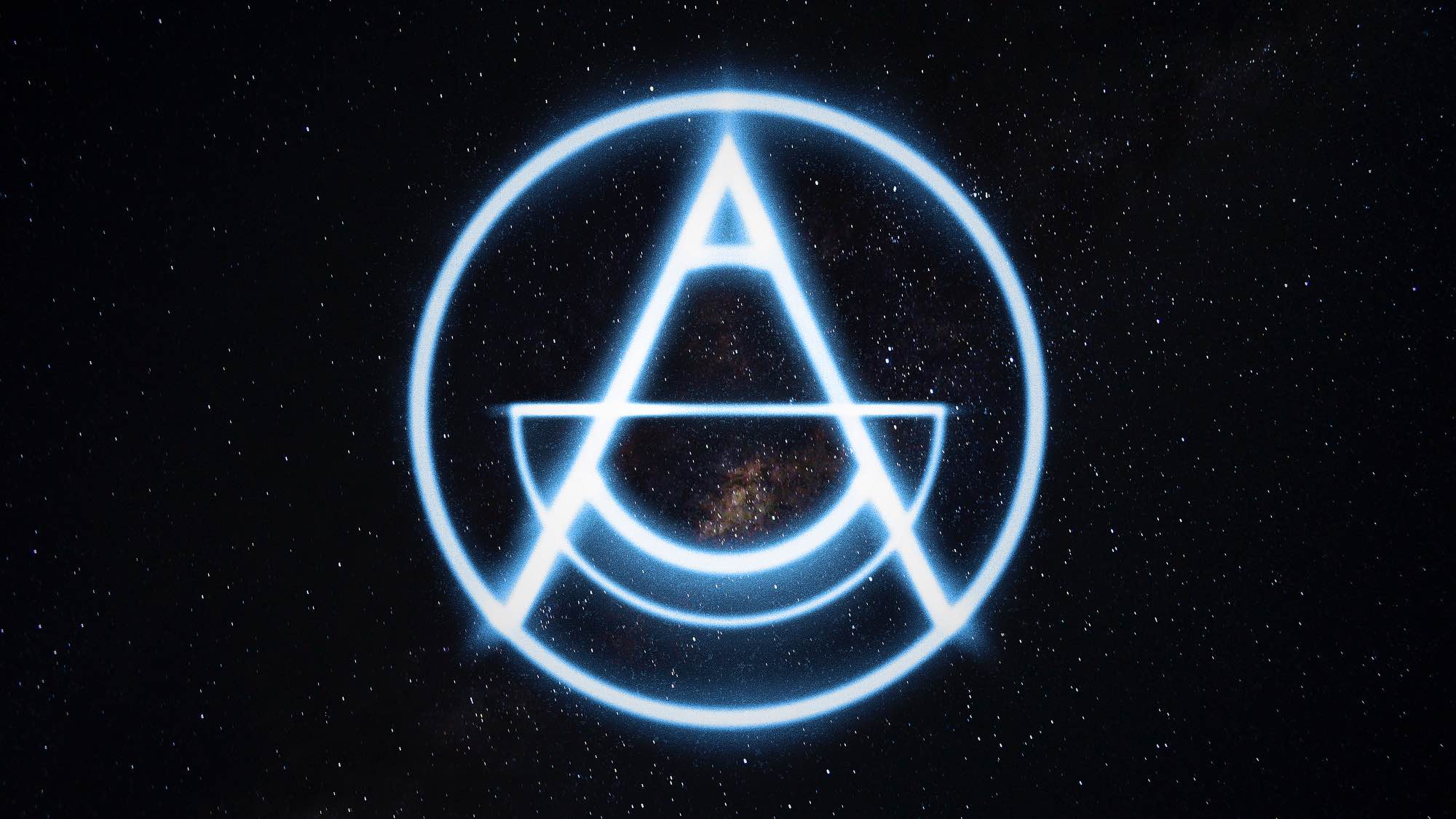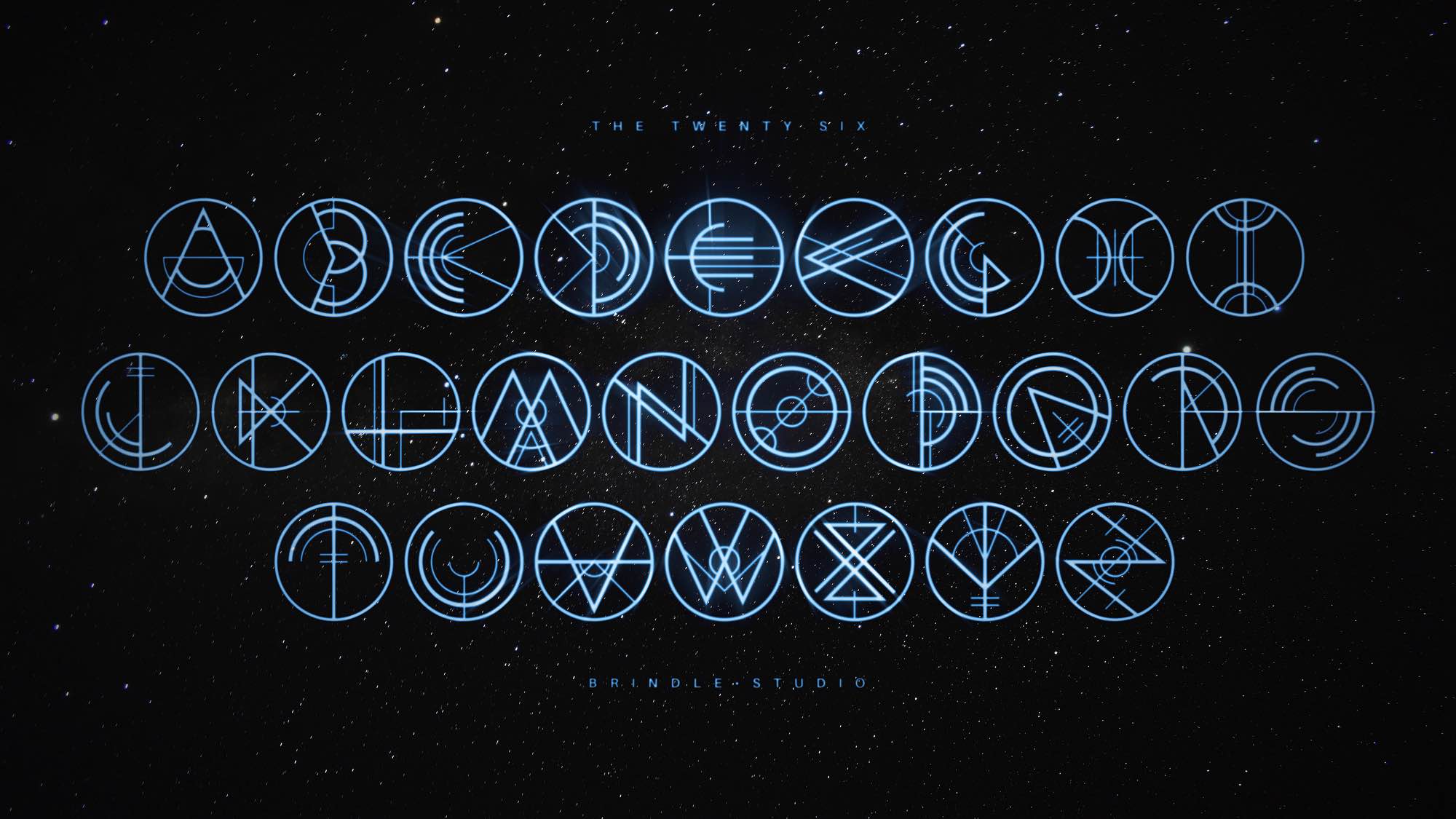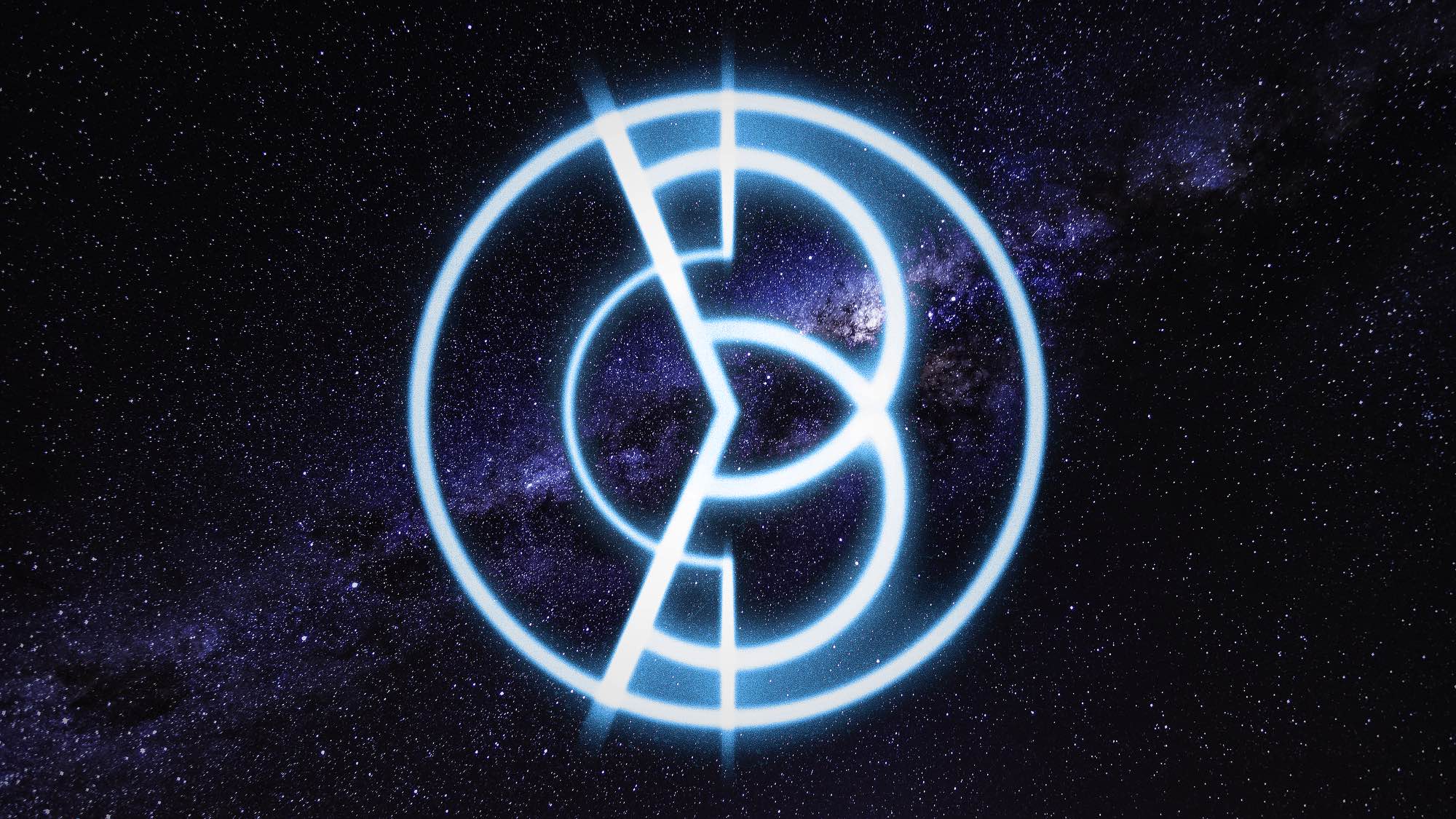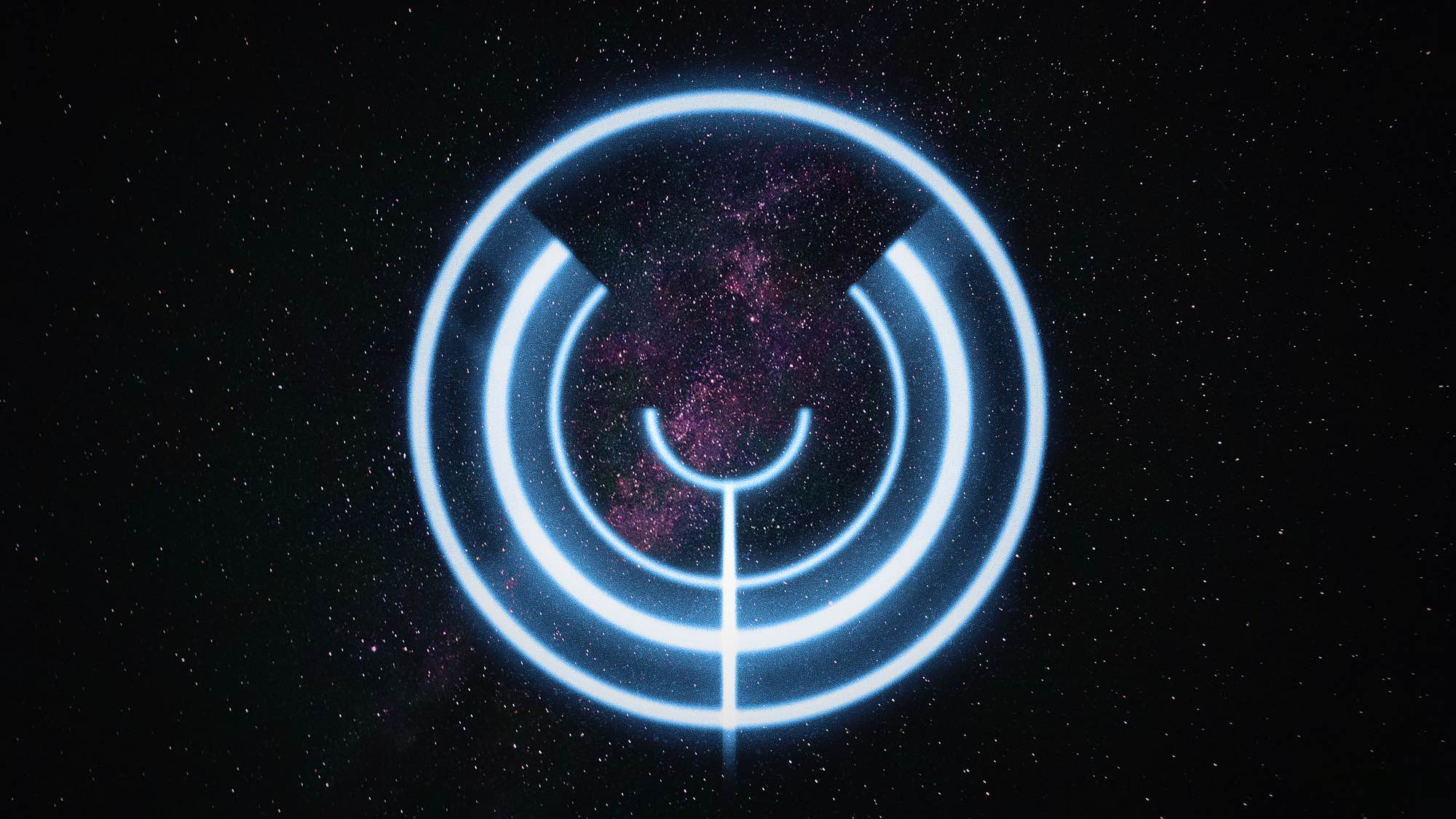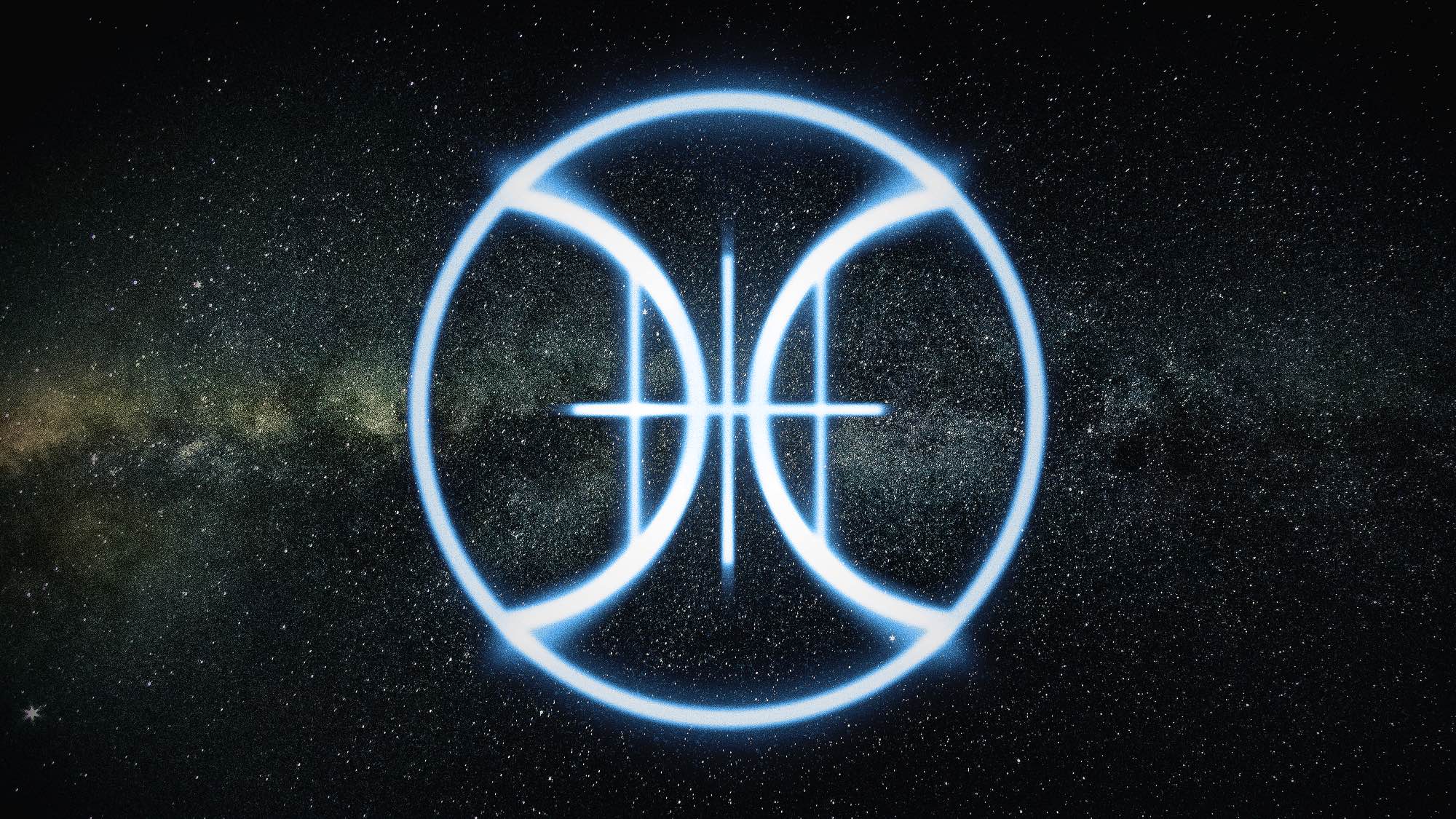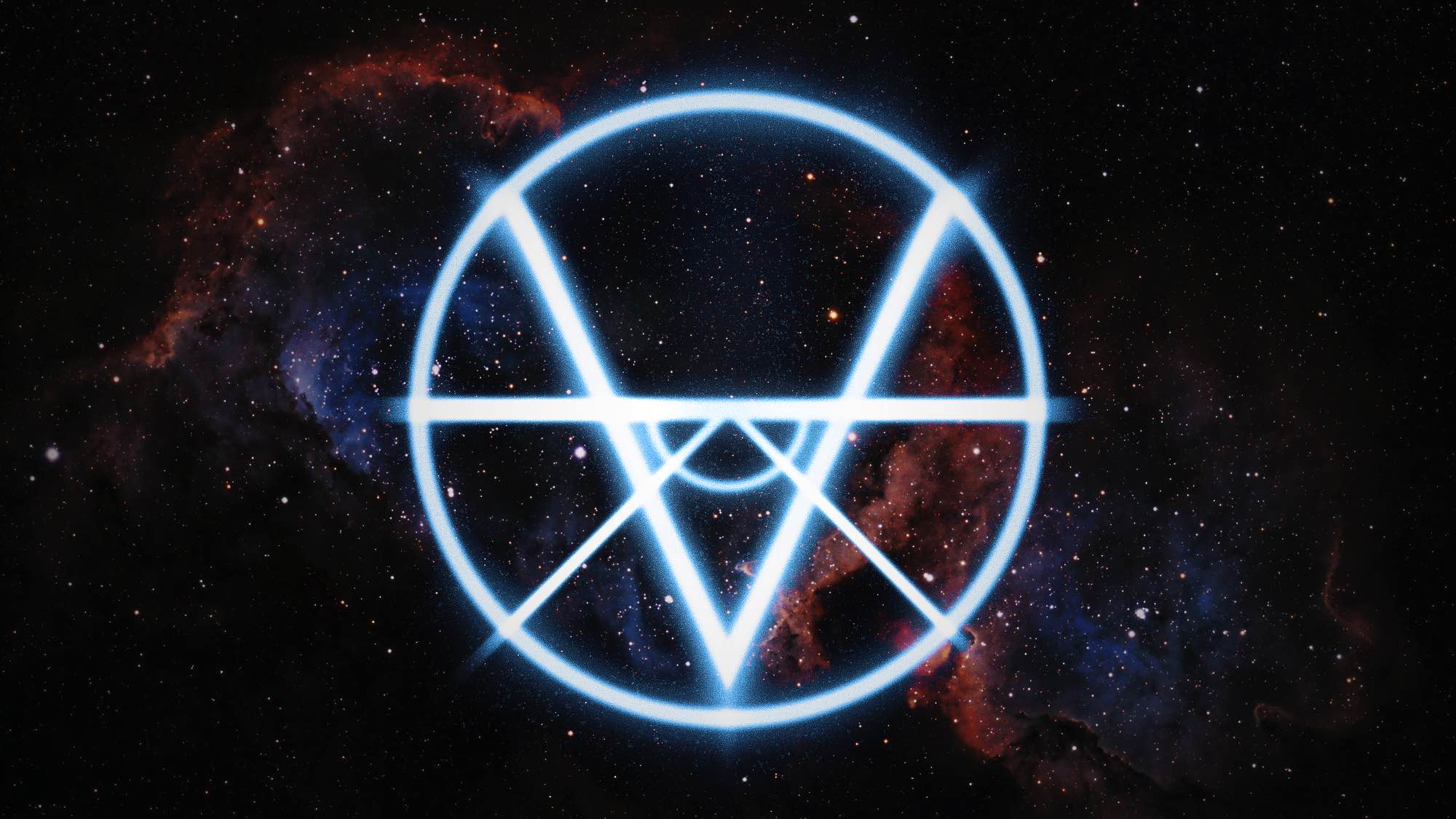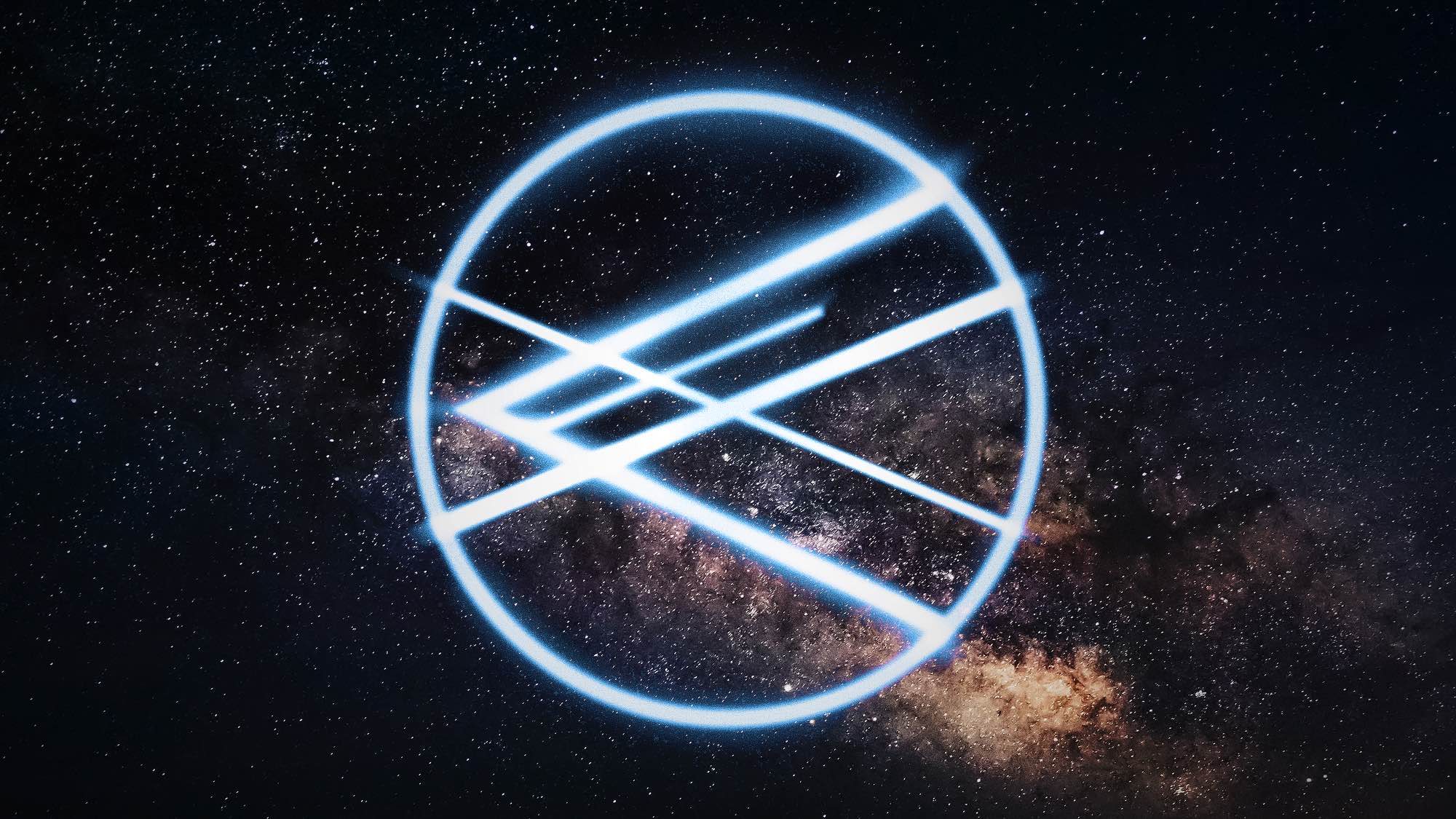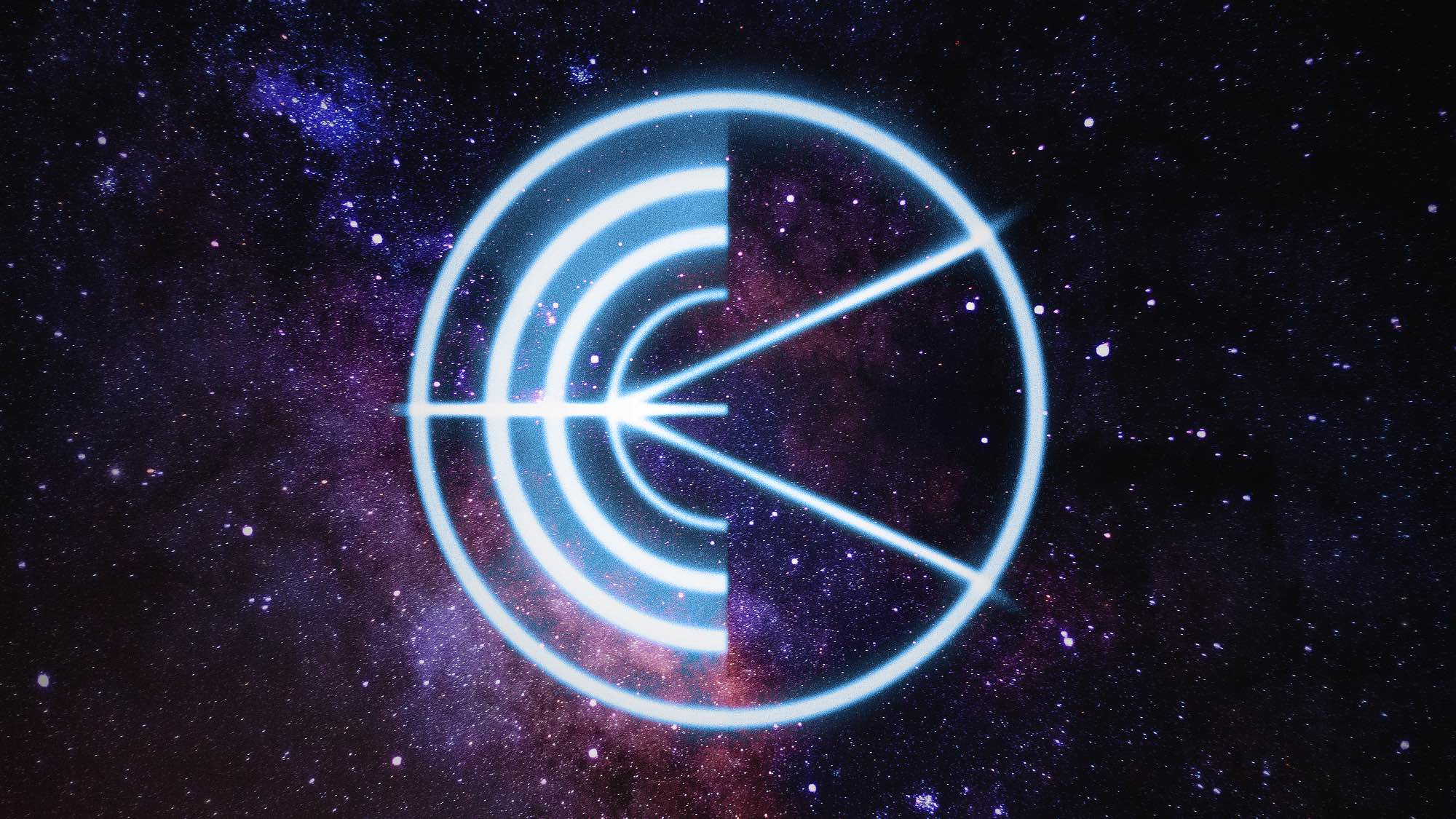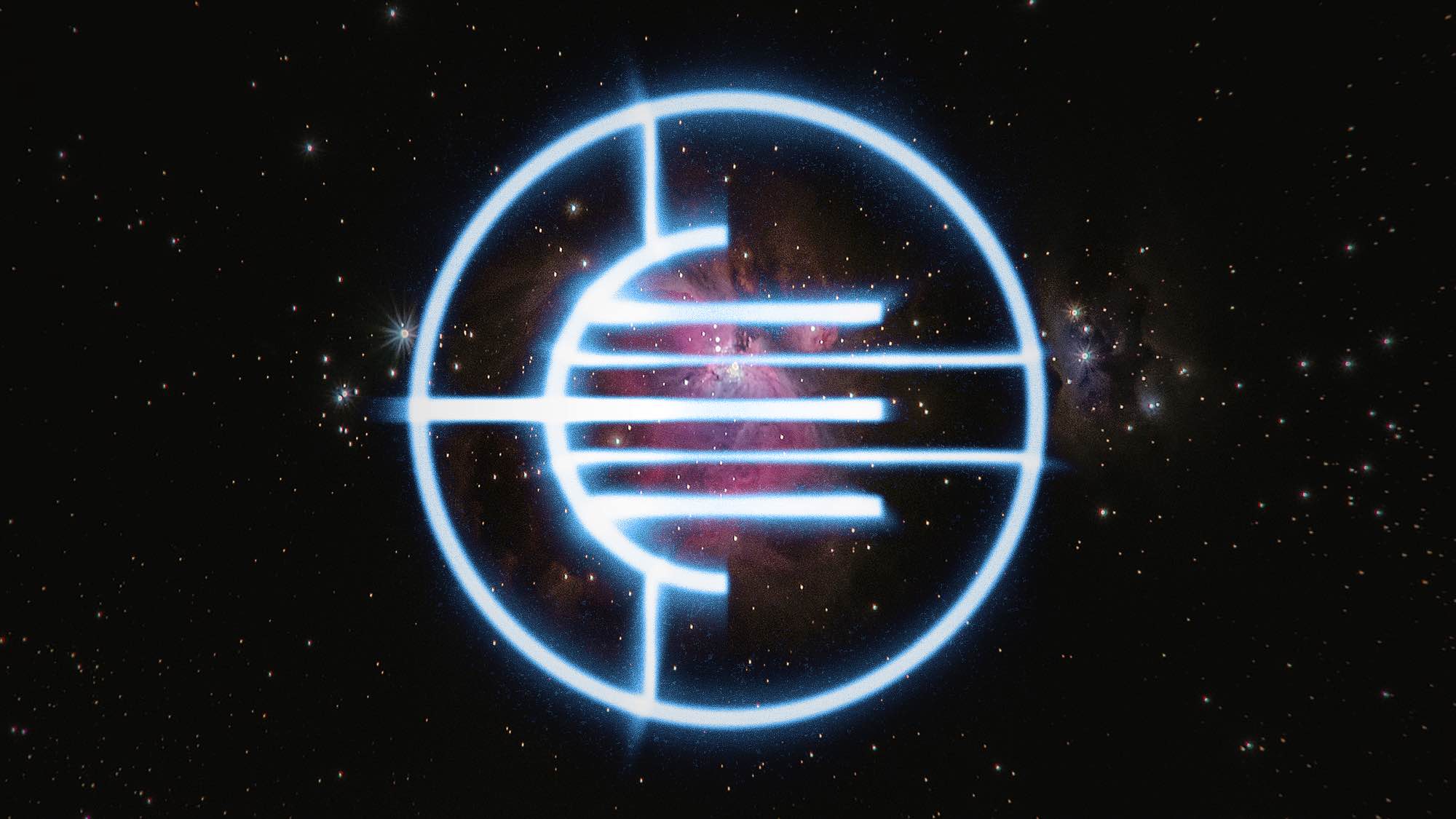
THE 26 TYPEFACE
Inspired by The Nine from one of my all time favourite games: Destiny. Symbols reference each of these etherial beings manipulating time and space from beyond the ether. But to what end? Now the alphabet too has it’s own place beyond the stars via this mystical abstract geometric symbol typeface. Each letter becoming it’s own cryptic entity, calling to you ; from deep across the void. Will you answer?
Wait. There’s 27?!
Oh you little explorer.
You discovered the secret...
...the Brindle entity[!]